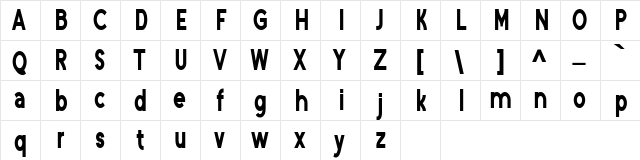
Vilona Black
| Designer | Nico Muslib. Jember |
Design Context for Vilona Typeface
Vilona takes a measured approach to typography — its balanced proportions and neutral character make it a reliable workhorse for both digital and print work.